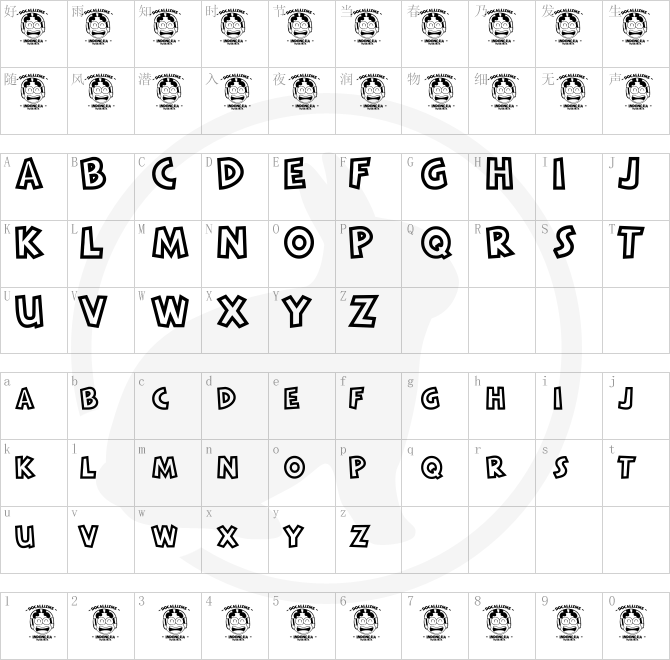
- Font Name:RADITAS CARTOON
RADITAS-CARTOON.otf is a very beautiful artistic font, RADITAS-CARTOON.otf is widely used in the design and printing of various books and pictures,RADITAS-CARTOON.otf has a strong visual impact,RADITAS-CARTOON.otf is a commonly used font in newspapers, magazines and books, and is used in posters, e-commerce Poster design, store design, logo design, font design and other fields.RADITAS-CARTOON.